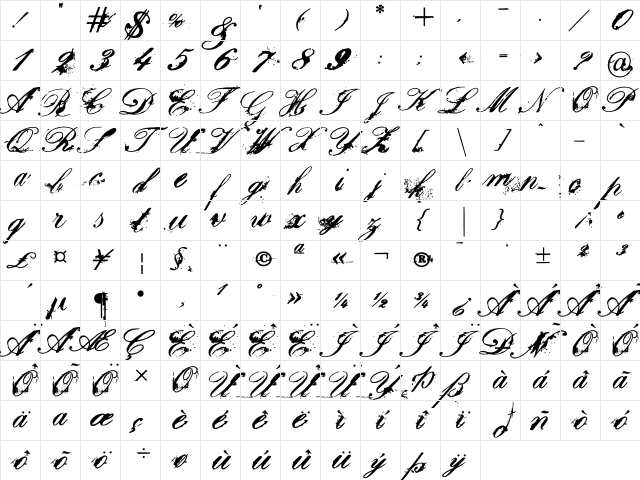
ChatoBand Bold Free Font
ChatoBand Bold
Foundry: German Olaya
Designer: German Olaya
Design Context for ChatoBand
ChatoBand is a composed and adaptable typeface that performs quietly and consistently across a wide range of design contexts. Its bold stroke weight gives it real presence on the page.